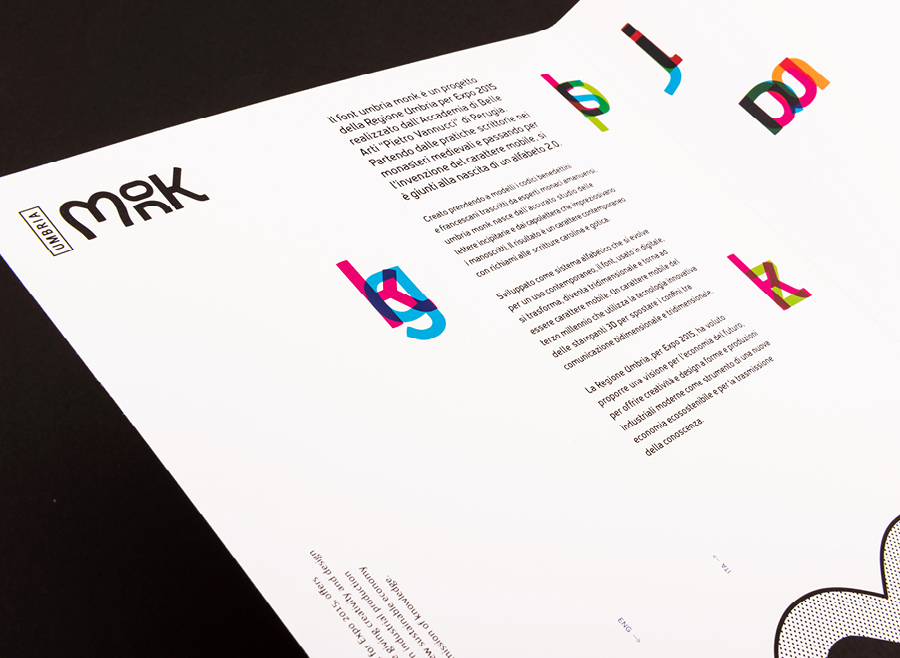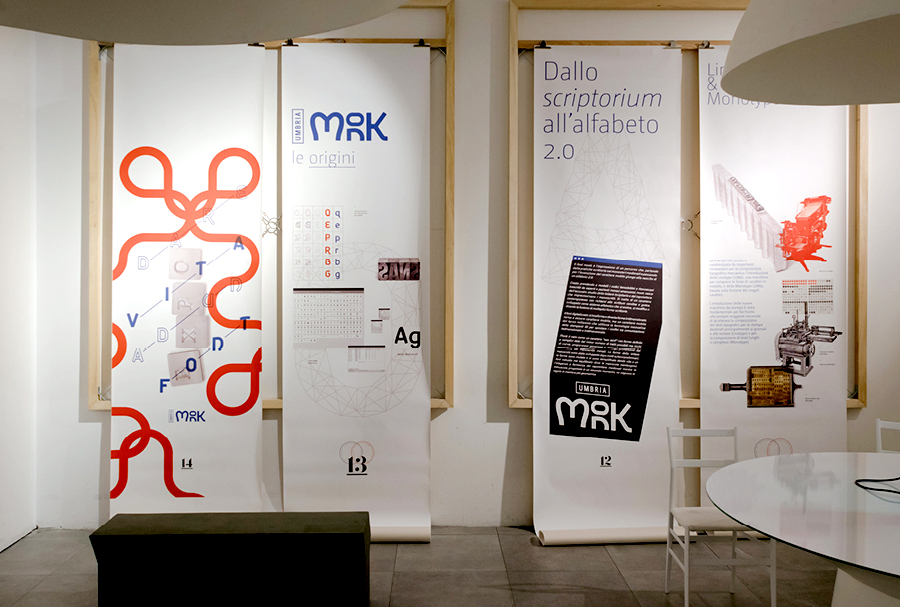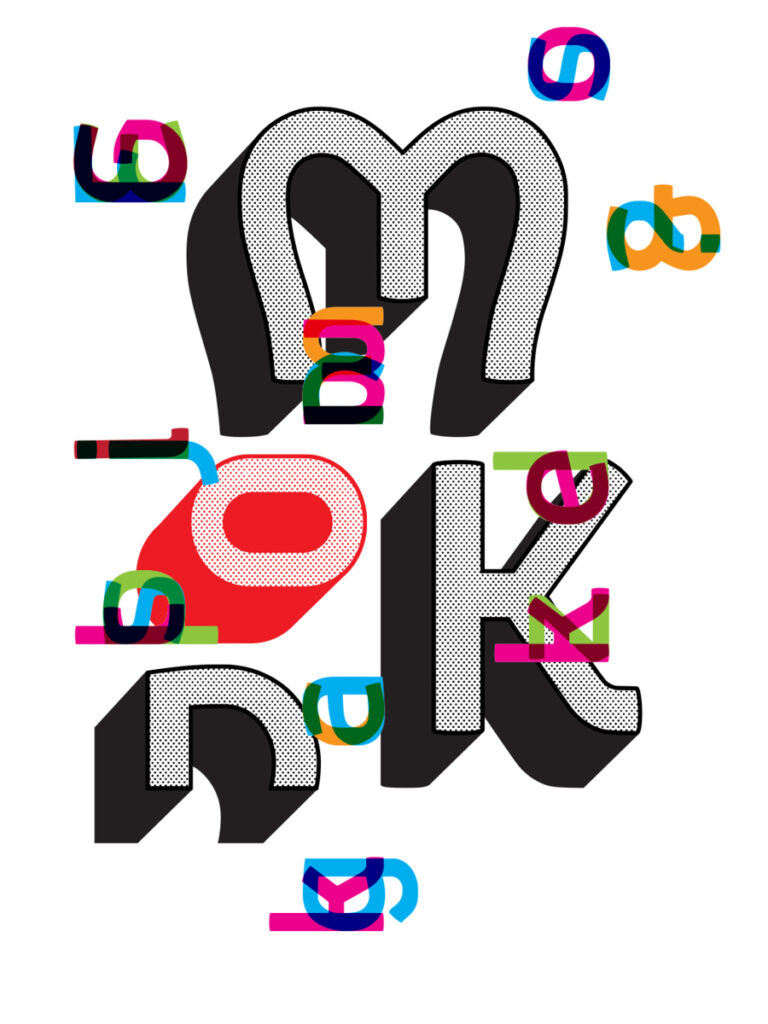
Expo Milan
We were approached in 2014 to design a typeface steeped in Italian history. The concept was to create a modern san serif font based on the 1300 Benedictine writings from Umbria.
The font produced was the center point of the Umbrian space during Expo Milano 2015, and widely exhibited throughout the world.